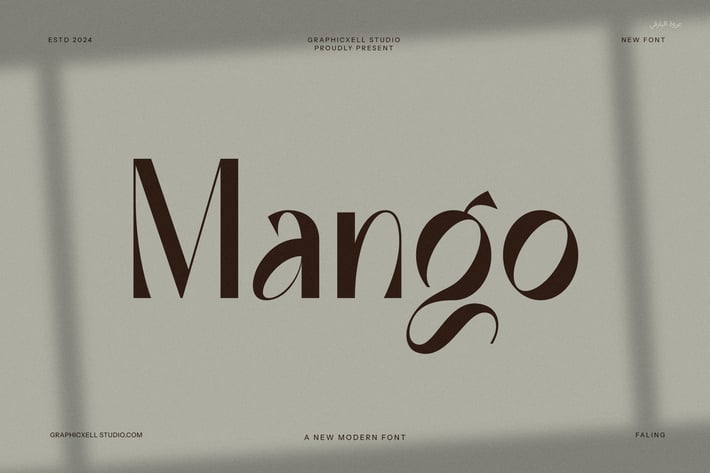
Mango Unique Display Font
Mango Unique Display Font is elegant and modern. This font is very suitable for various needs such as branding, logos, flyers, magazines and others.